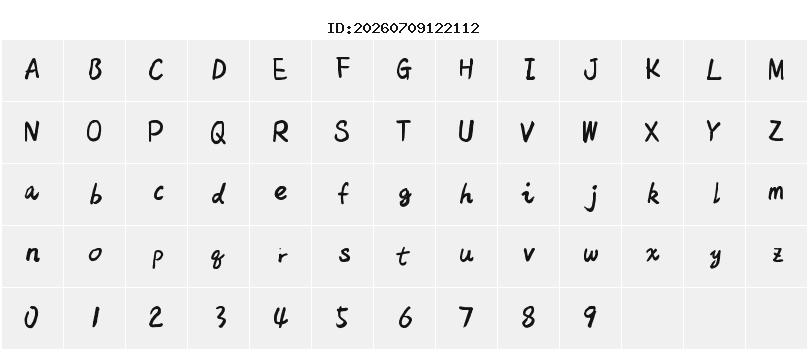
Muyao-Softbrush Preview
• Designer: 春颜秋色
About Muyao-Softbrush.ttf
Muyao-Softbrush.ttf is a modern, elegant sans-serif font designed for ultimate readability and visual harmony. Perfect for branding, headlines, web design, and print materials.